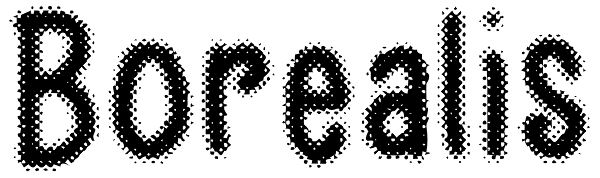
Borealis
Borealis has an over-bitmapped, whimsical quality, but retains the strength and lines of the underlying design. It's ideal for designs in which a grunge font might be desired, but legibility is crucial.
Borealis Font